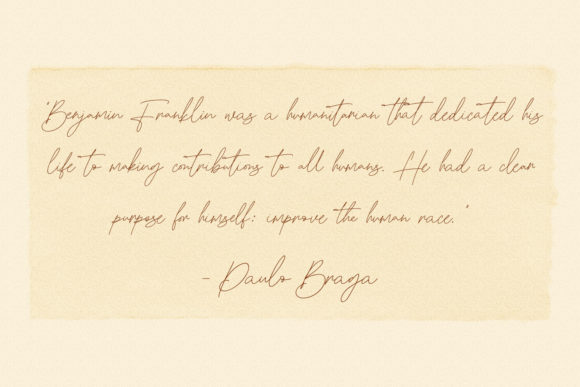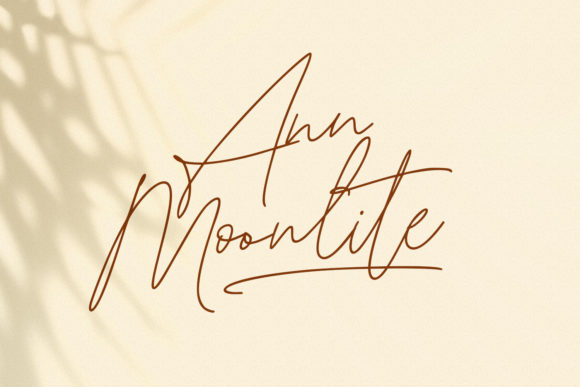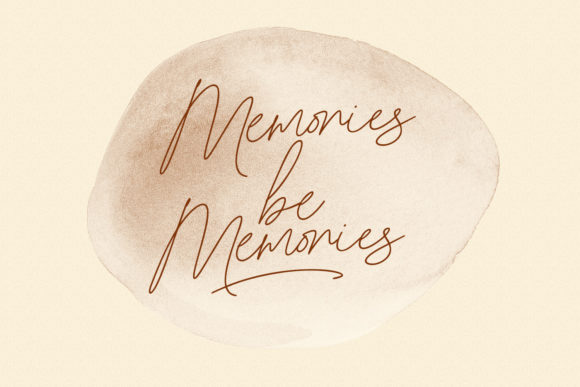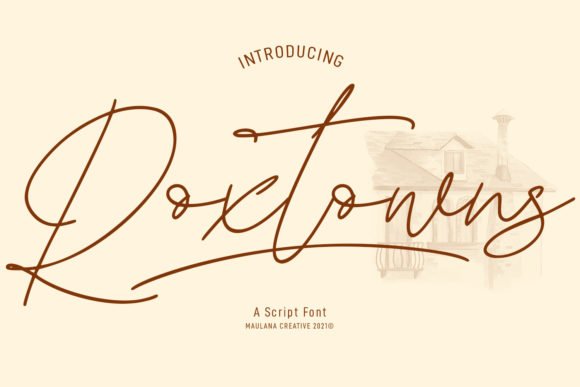
Introduction to Roxtowns Font
Roxtowns is a thin lettered and graceful script font.
Fall for its ravishing style and use it to create gorgeous wedding invitations, beautiful stationary art, eye-catching social media posts, and much more .
Why Choose Roxtowns Font?
Roxtowns Font offers exceptional quality and versatility, making it a valuable addition to your design toolkit. Whether you’re creating for personal projects or commercial use, Roxtowns Font delivers professional results.